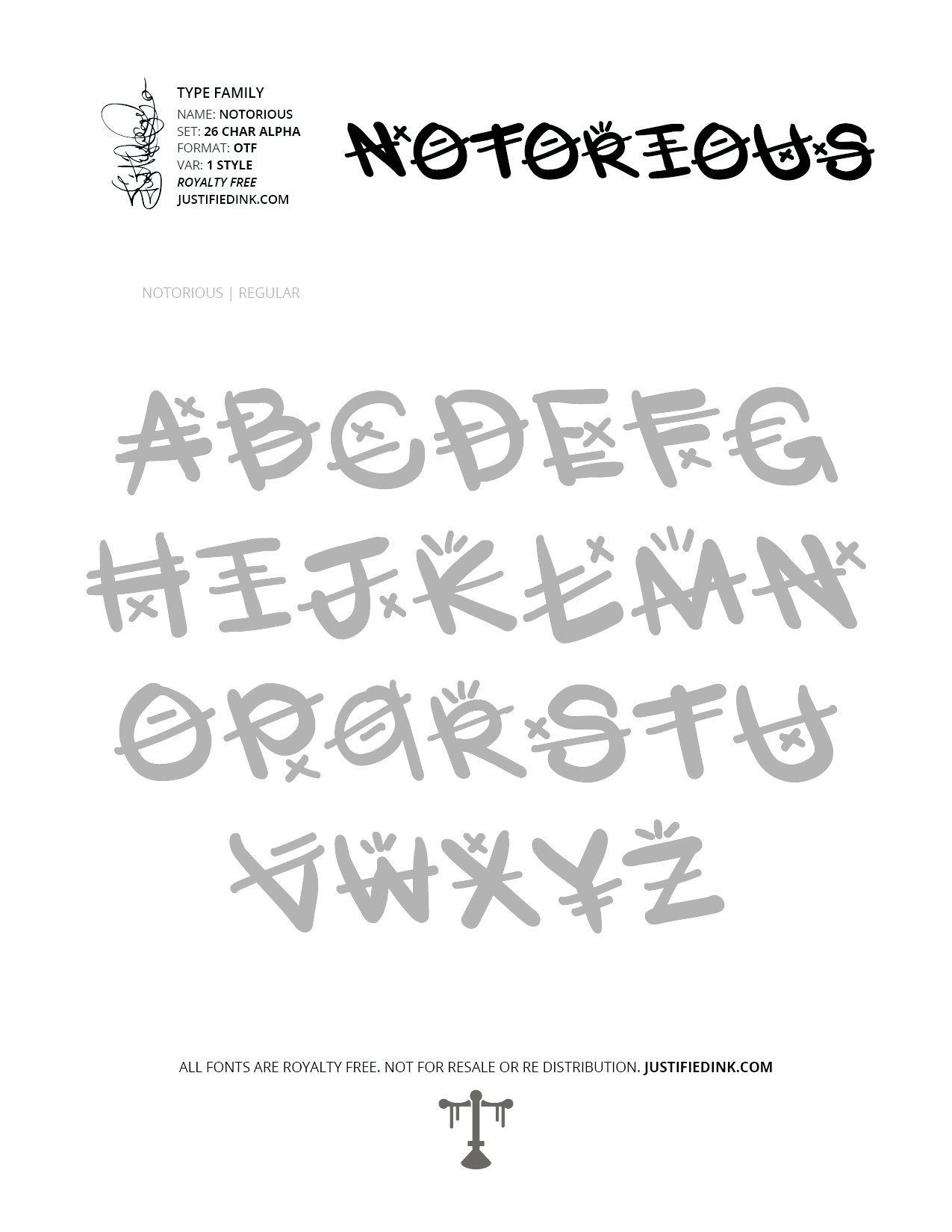
Notorious (1 style) - Custom Font by Justified Ink
NAME: Notorious
Introducing the Notorious MOP style. Run it up and down the streets.
This font is part of the collection by Justified Ink, called Blackletter III. After 15+ years creating, I began to focus on building personal libraries of my work. Blackletter III is yet another amazing collection of 30 handmade fonts. Building off of the work done to create Blackletter II, this collection is specialized where it was created digitally. This features many classic styles such as gothic, fraktur, beneventan, and uncial. Additionally, this collection contains several other styles drawn from graffiti, hiphop, and indie type styles. It comes in a full set of 26 char alpha. Each font family has variations in styles and/or non-alpha chars.